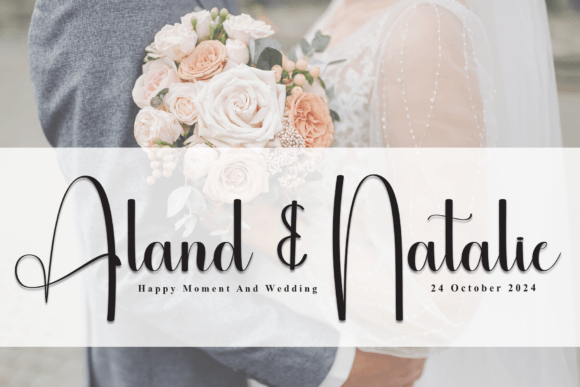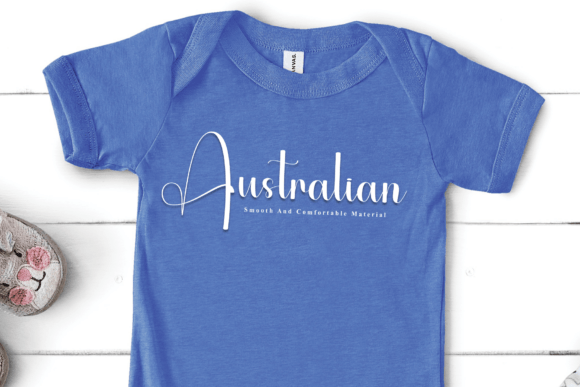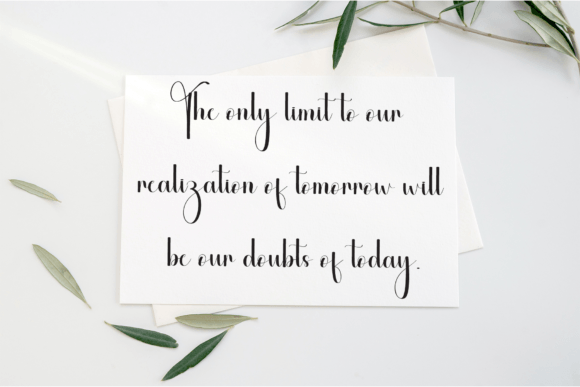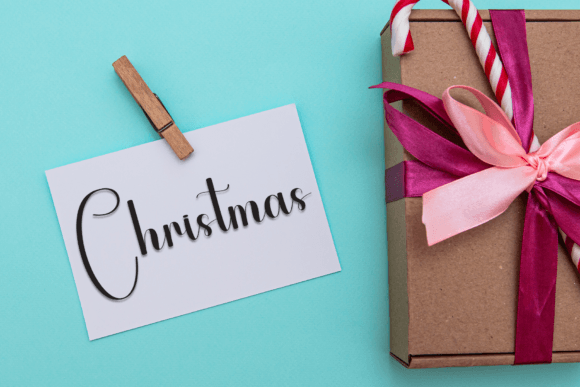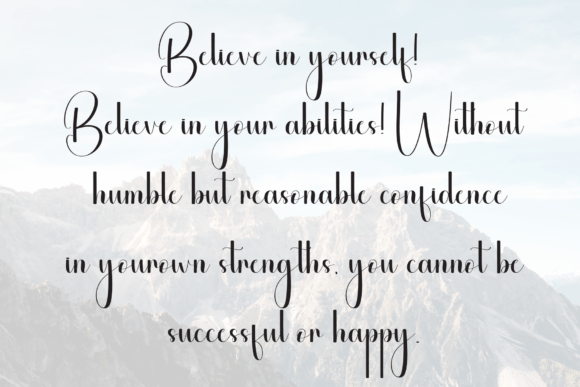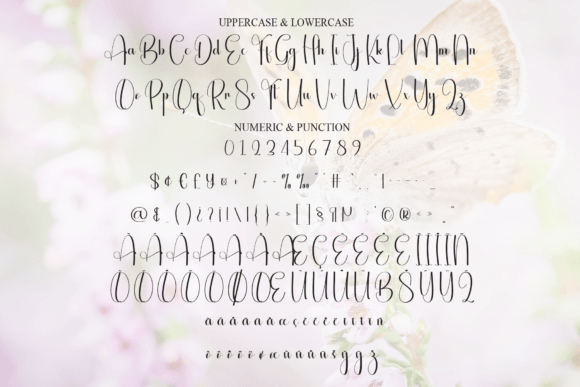
Introducing the Butterfly Font: A Whimsical Charm for Your Designs
Are you looking for a font that can add a touch of sweet friendliness to your designs? Look no further than the Butterfly Font! This endearing handwritten display font is perfect for creating whimsical and delightful designs that will capture the hearts of your audience. In this article, we’ll dive into the world of the Butterfly Font and explore its features, uses, and benefits.
The Delightful Appeal of Butterfly Font
The Butterfly Font is a beautifully crafted handwritten display font that exudes an air of sweet friendliness. Its delightful appeal makes it perfect for designs that require a touch of whimsy and fun. The font’s unique and playful style is reminiscent of a child’s handwriting, making it an excellent choice for designs that need to convey a sense of innocence and charm.
Perfect for Wedding Invitations and Heartfelt Cards
The Butterfly Font is particularly well-suited for wedding invitations, heartfelt cards, and other designs that require a touch of romance and elegance. Its delicate and feminine style makes it perfect for creating beautiful and memorable designs that will leave a lasting impression on your audience. Whether you’re a designer or a crafter, this font is sure to become a favorite in your collection.
A Font that Fits Like a Dream
The Butterfly Font is designed to fit seamlessly into a variety of designs, from wedding invitations to social media graphics. Its versatility makes it an excellent choice for designers and crafters who need a font that can adapt to different styles and themes. Whether you’re creating a formal or informal design, this font is sure to fit like a dream.
Adding a Dash of Delightful Fun
The Butterfly Font is not just a font – it’s an experience. It’s a way to add a dash of delightful fun to your designs and make them stand out from the crowd. With its playful and whimsical style, this font is perfect for designs that require a touch of personality and charm. Whether you’re creating a design for a client or for personal use, this font is sure to bring a smile to your face.
Imbue Your Creations with a Uniquely Joyful Touch
The Butterfly Font is more than just a font – it’s a way to imbue your creations with a uniquely joyful touch. Its sweet and friendly style makes it perfect for designs that require a touch of warmth and personality. With this font, you can create designs that are not only beautiful but also joyful and uplifting.
The Icing on the Cake: Adding an Irresistibly Lovable Vibe
Just as icing adorns a cake, the Butterfly Font embellishes your designs with an irresistibly lovable vibe. Its delicate and feminine style makes it perfect for adding a touch of sweetness and charm to your designs. Whether you’re creating a design for a client or for personal use, this font is sure to make your creations stand out from the crowd.
The Butterfly Font is a whimsical and delightful font that is perfect for designers and crafters who need to add a touch of sweet friendliness to their designs. Its unique and playful style makes it perfect for creating memorable and beautiful designs that will capture the hearts of your audience. With its versatility and charm, this font is sure to become a favorite in your collection.